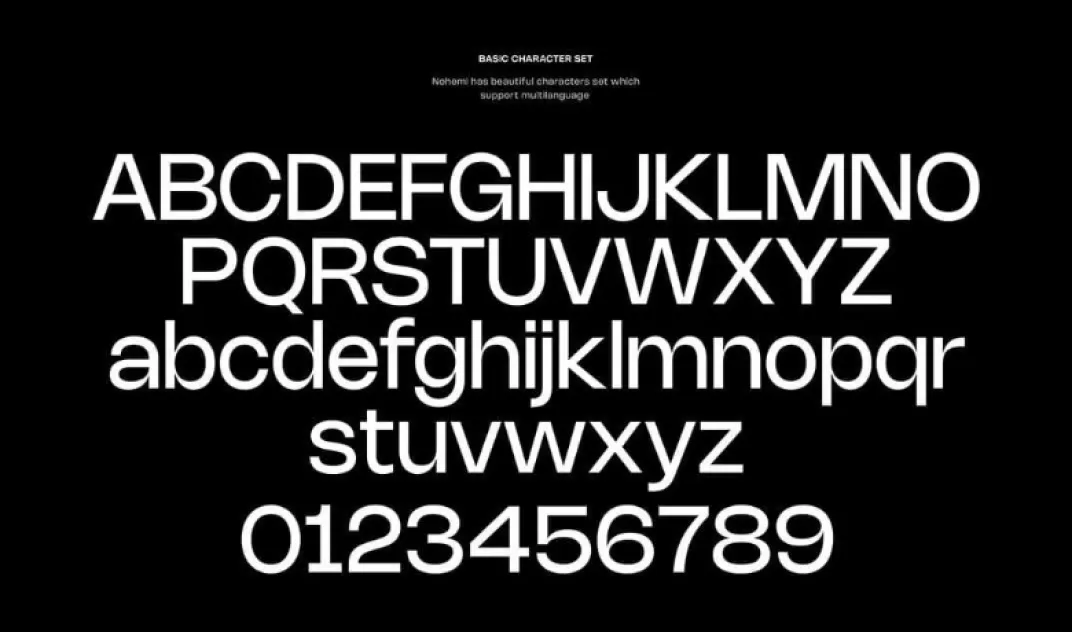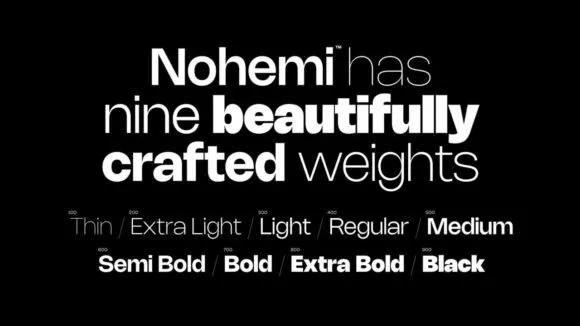
Nohemi is a clean and modern sans serif font designed for versatility and readability. Its balanced letterforms and smooth curves make it perfect for both professional and creative projects.
Whether you need a minimal and elegant typeface or something bold for impactful designs, Nohemi adapts beautifully to different styles.
This font works well for a wide range of uses, including branding, advertising, website headers, product packaging, and editorial layouts. Its modern appearance ensures that your designs will look fresh, stylish, and easy to read across both print and digital platforms.
The font’s geometric structure and neat proportions also give it a professional and polished look.
Nohemi Font Family
Type Modern Sans Serif
Best Use Logos, branding, UI design, editorial, packaging
Nohemi’s simple yet refined design gives it a timeless appeal. It can be used for bold headlines or smaller body text without losing clarity, making it a reliable choice for designers who value versatility. Add a touch of sophistication to your next project with Nohemi. Its minimalist style and adaptability make it suitable for everything from corporate branding to creative artwork.